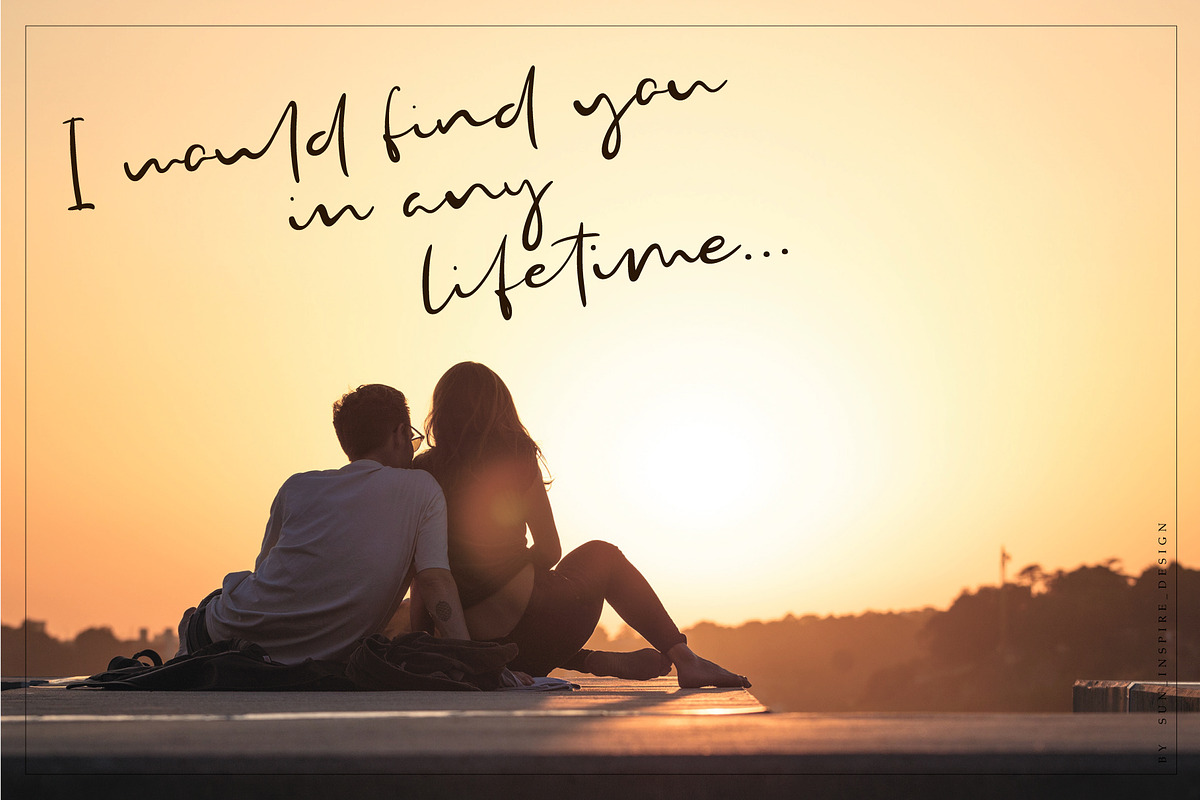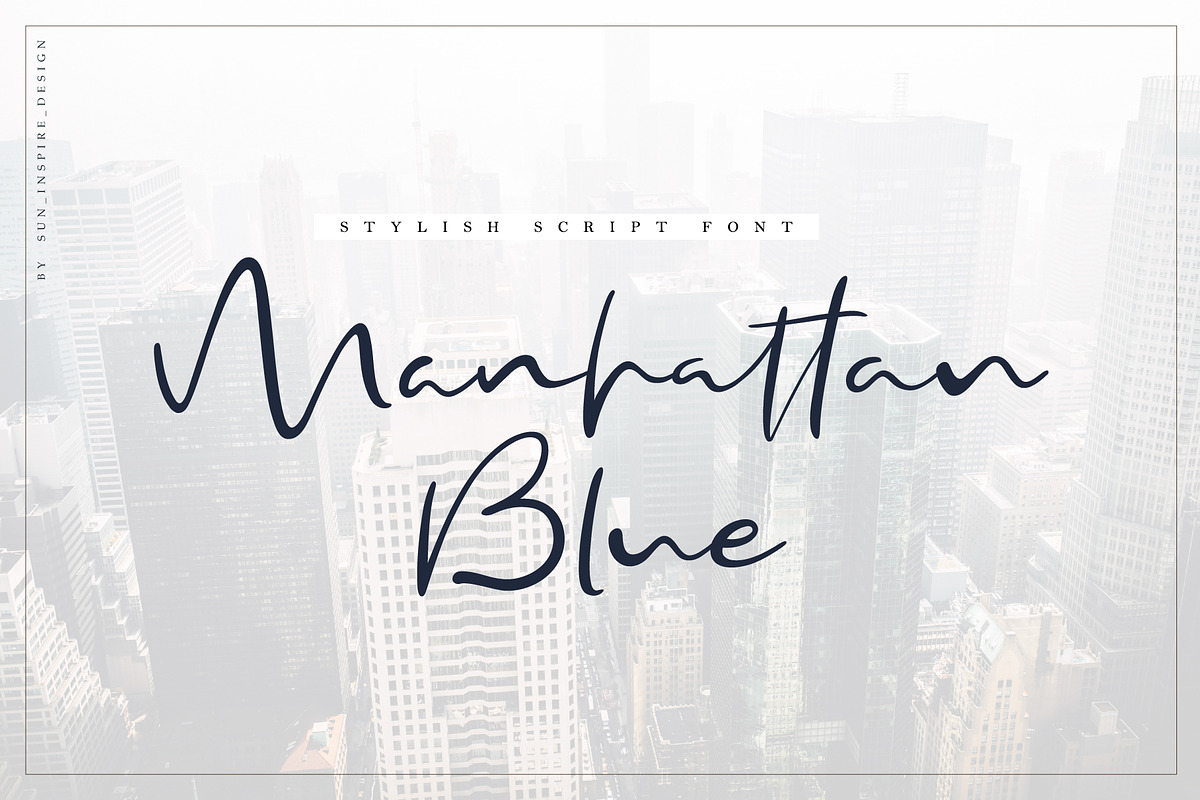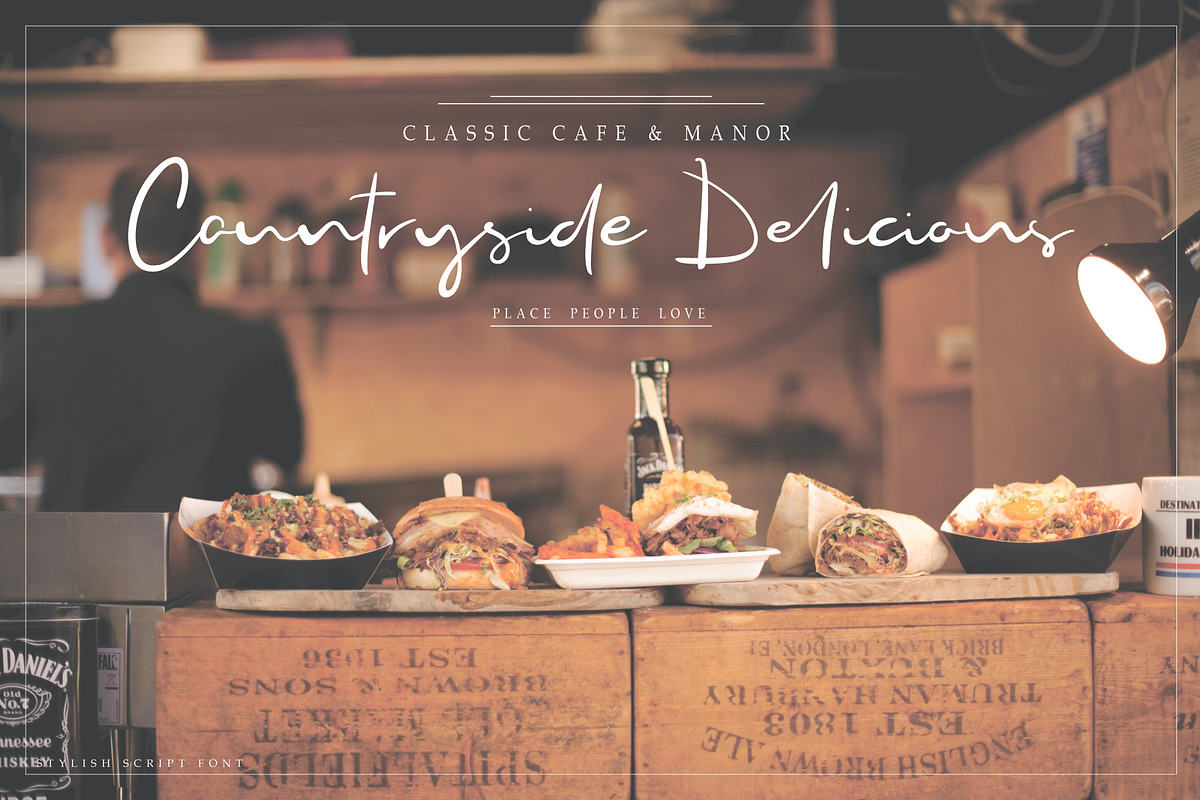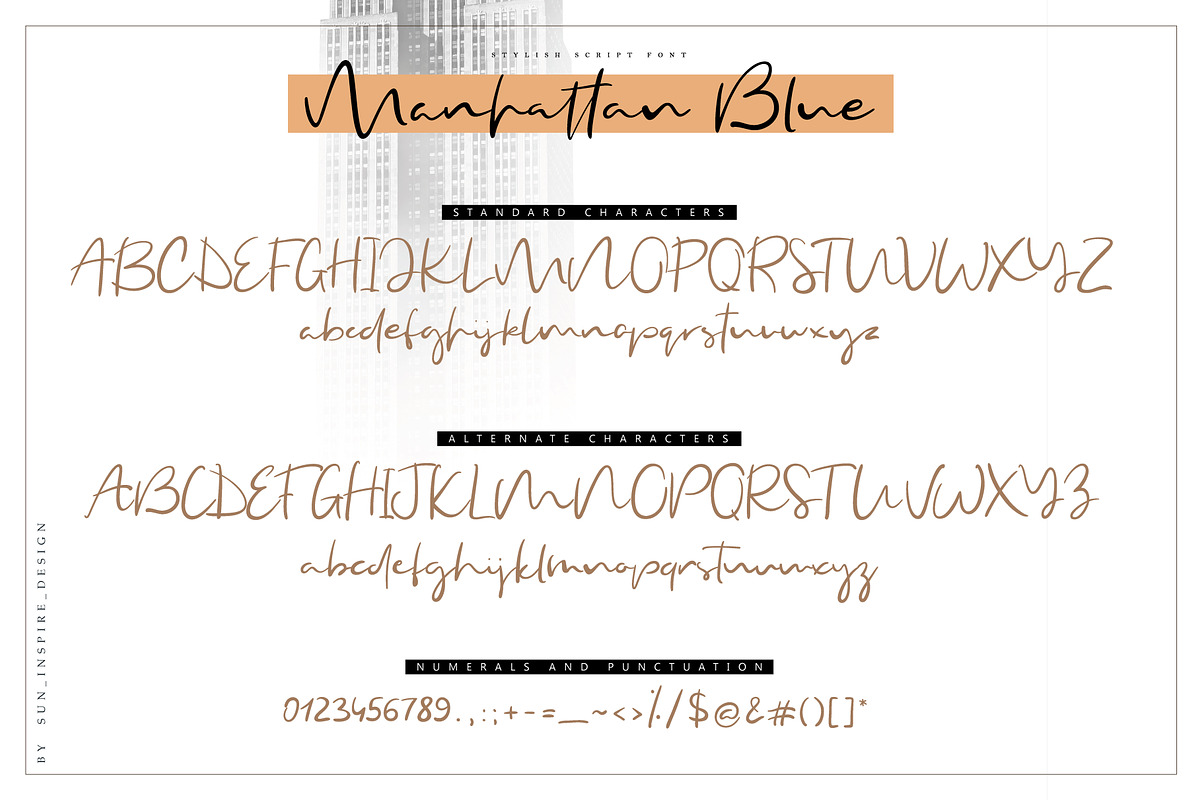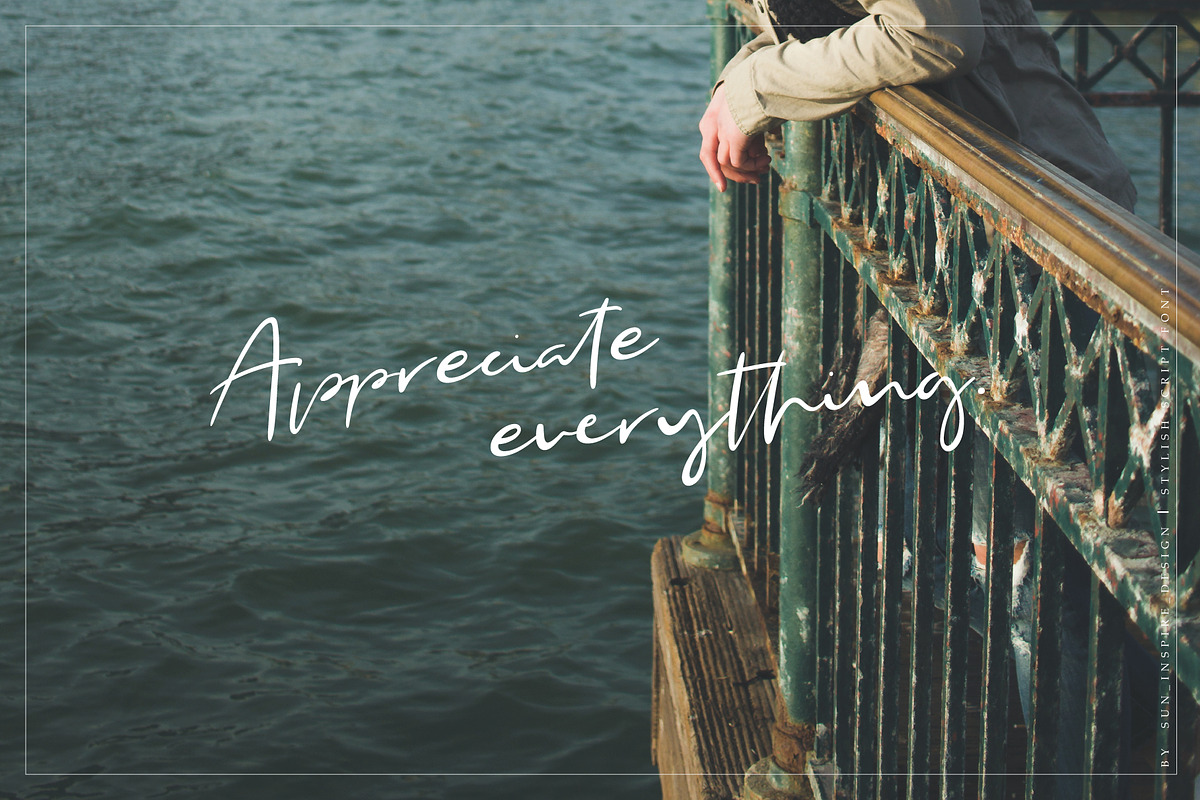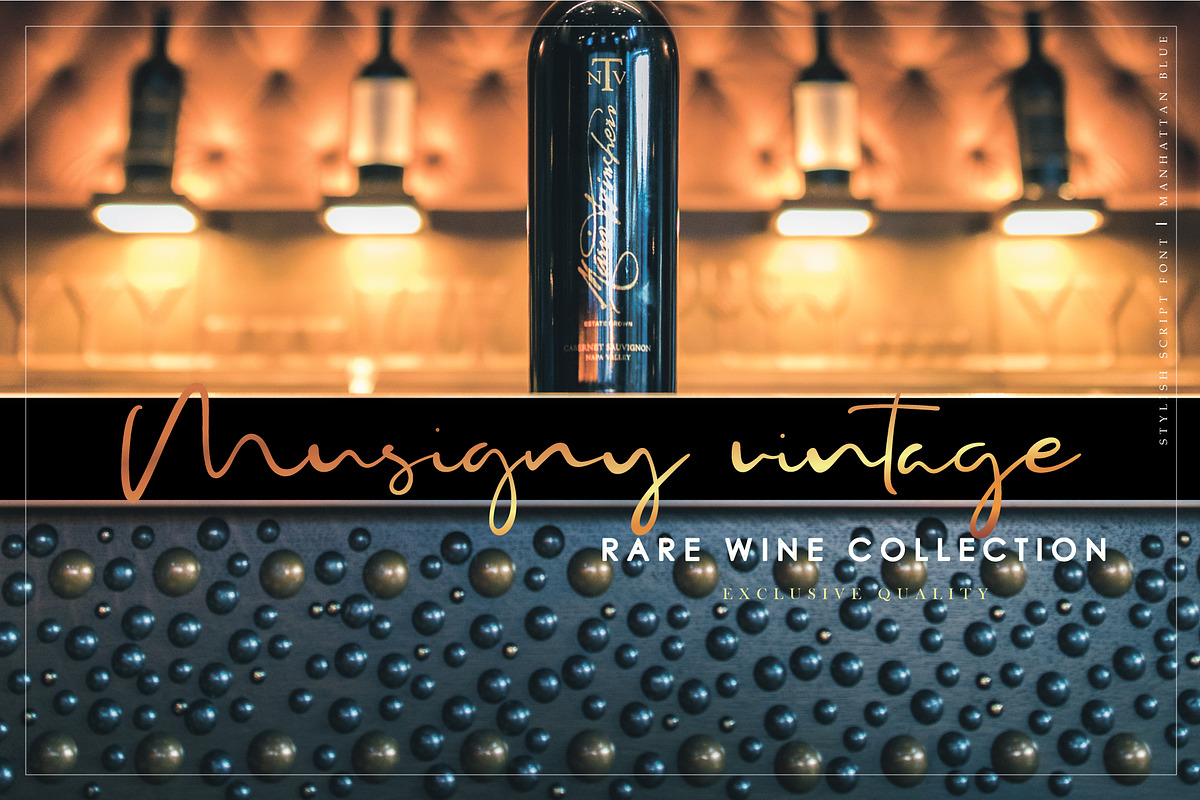
Manhattan Blue Script Font
Manhattan Blue is stylish handwritten font with casual modern look. Every single letter have been carefully crafted to make your work looks interesting and unique. This font will look good on various design projects - branding, magazines, blog posts, social media, business cards etc.
a full set of upper & lowercase characters;
a full set of alternate upper & lowercase characters;